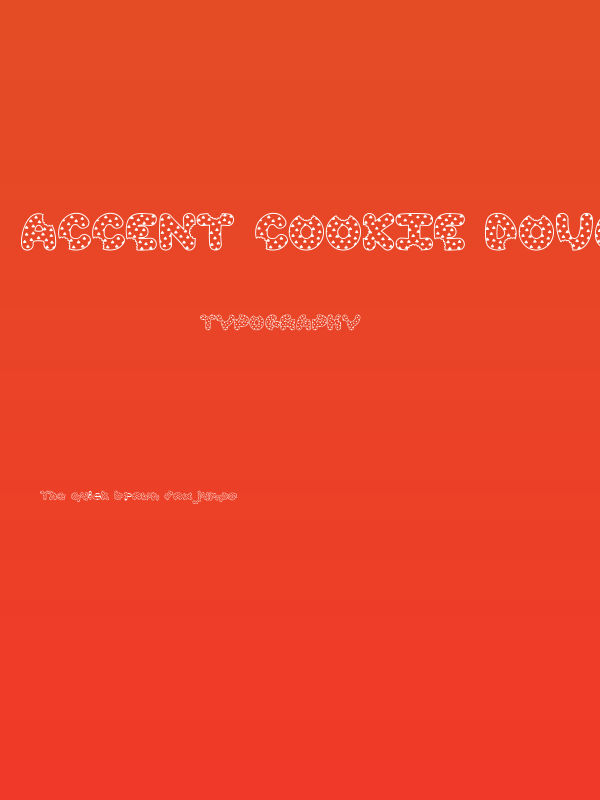
Accent Cookie Dough Font
Accent Cookie Dough Description
This playful and whimsical font features a design reminiscent of cookie dough with chocolate chips scattered throughout each character. The letters are rounded and bubbly, giving them a soft and inviting appearance. The font's unique texture and pattern make it stand out, adding a fun and creative touch to any project. Its decorative style is perfect for capturing attention and conveying a sense of joy and playfulness. The characters are evenly spaced, ensuring readability while maintaining their quirky charm.
| Overall Style | Playful, Whimsical |
| Use Case | Logos, Headlines, Posters |
| Proposed Projects | Ideal for children's books, bakery branding, playful posters, and party invitations. |